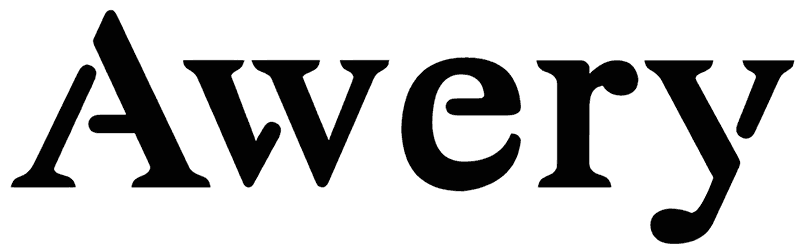
Awery Font
Awery is a combination of a classic serif font and a wonderful stencil font that carries a sense of seriousness, confidence, momentum, and approachability.
While the customers’ eyes go up and down following its magical flow, they will definitely fall in love with your headlines, packaging, announcements, social media posts, or branding projects. Above all, this masterpiece offers two distinctive styles to designers and widens your selection range.